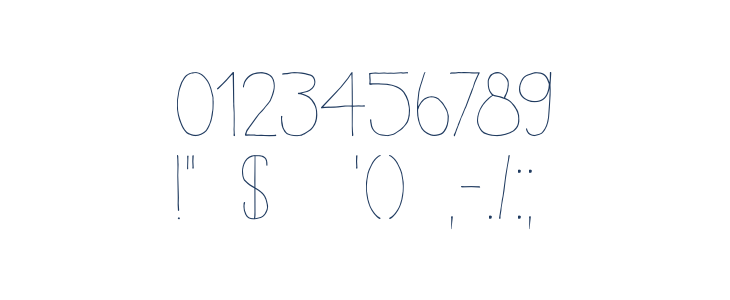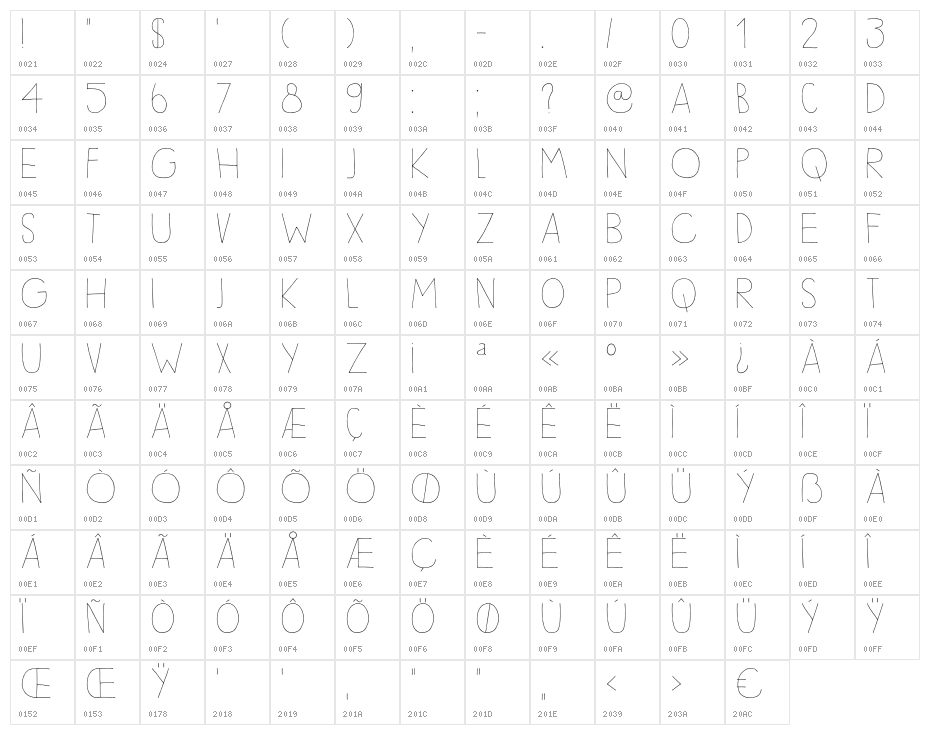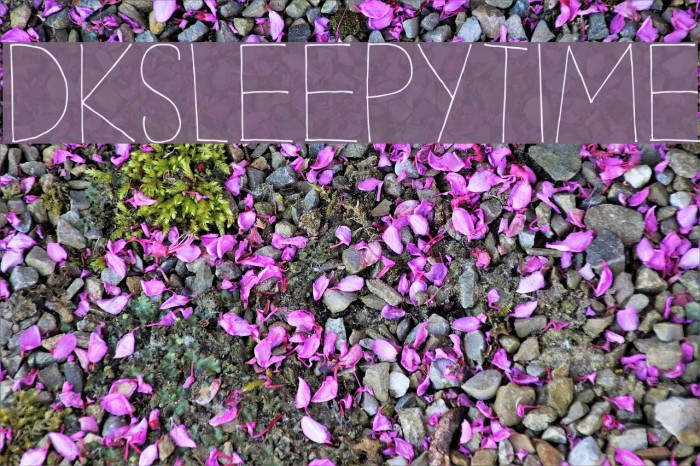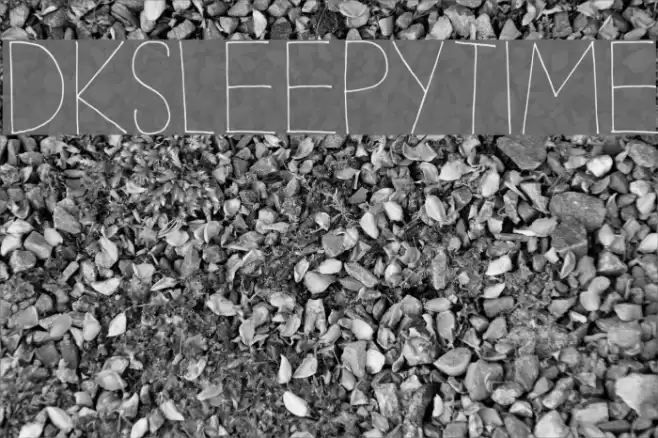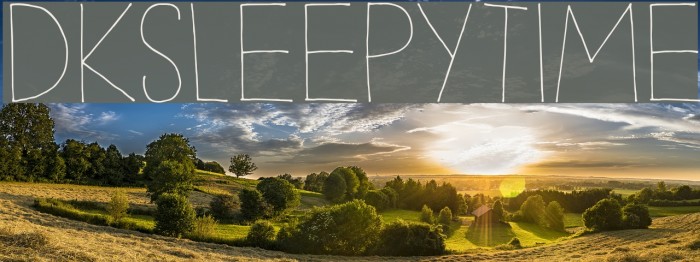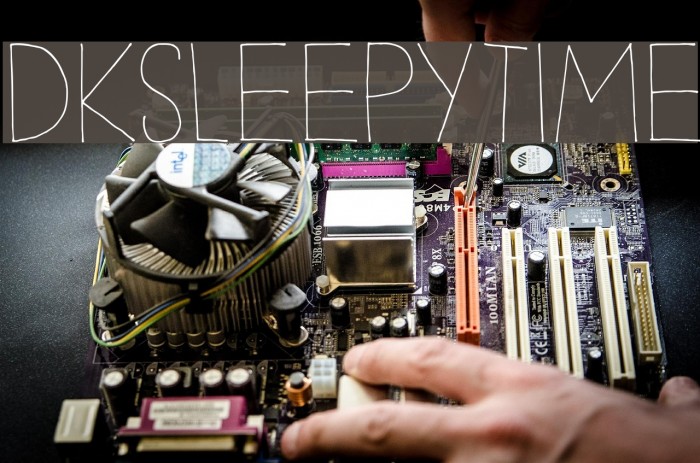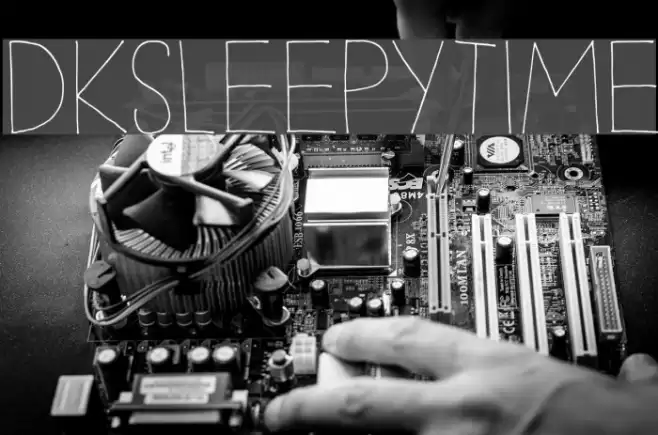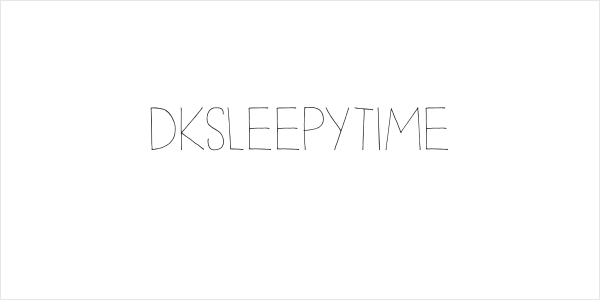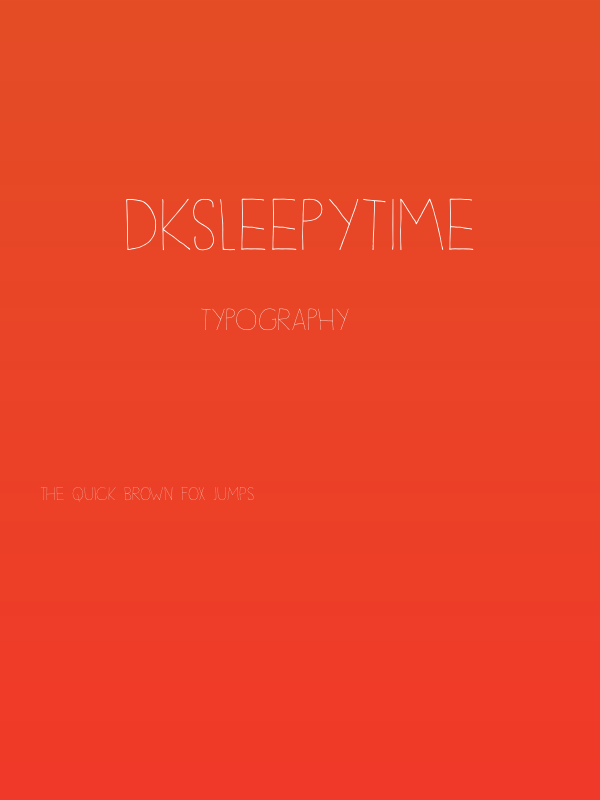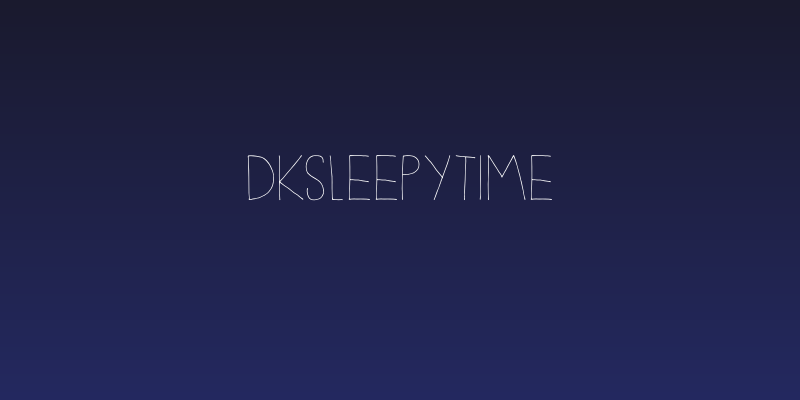
DKSleepyTime Font
DKSleepyTime Description
This font features a whimsical and playful design with a hand-drawn aesthetic. The characters are tall and slender, with a slightly irregular stroke that gives them a casual, informal appearance. The uppercase and lowercase letters maintain a consistent style, with rounded edges and a slight tilt that adds to the font's charm. Numbers and special characters follow the same playful design, making the font versatile for various uses. The overall look is light and airy, perfect for projects that require a touch of personality and creativity.
| Overall Style | Playful, Casual |
| Proposed Projects | Ideal for children's books, greeting cards, playful branding, and creative projects. |